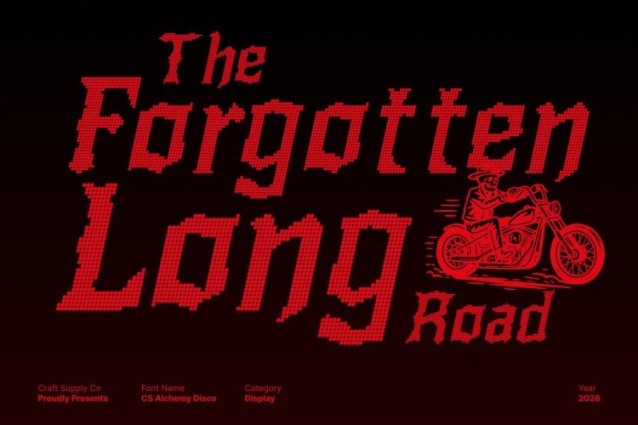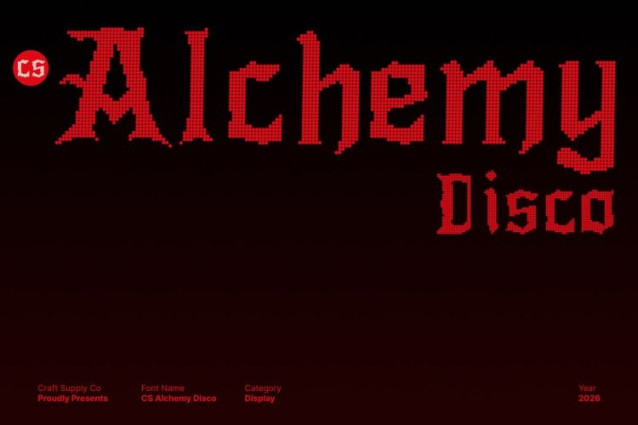
CS Alchemy Disco Font
CS Alchemy Disco Font This is a black metal display font that channels the raw energy, rebellion, and darkness of extreme music culture. Built from jagged spikes, chaotic strokes, and razor-sharp edges, each letterform radiates aggression and untamed power. The font feels ritualistic and ferocious, delivering a visual impact that is bold, menacing, and unapologetically fierce.
Chaotic Letterforms with Relentless Energy
At its core, this font thrives on distortion and imbalance. Uneven structures, spiked details, and fractured rhythms create a wild, anarchic presence that feels alive and volatile. This intentional chaos amplifies its rebellious attitude, making every word feel explosive and commanding perfect for designs that demand dominance and intensity.
Dark Aesthetic with Disco-Era Electricity
Beyond brutality, this font carries an artistic layer of darkness. Intricate handcrafted textures reveal beauty beneath the chaos, while the disco influence introduces an electrifying, stage-driven energy like blinding lights cutting through smoke and sound. This fusion creates a font that feels theatrical, expressive, and dangerously magnetic.
Perfect for Extreme Music and Edgy Visual Statements
This font is designed for black metal band logos, album covers, posters, underground fashion, and avant-garde event branding. Whether used in music visuals, dark art projects, or experimental graphics, this font injects raw power, chaotic elegance, and unforgettable presence ensuring your design feels intense, fearless, and alive.